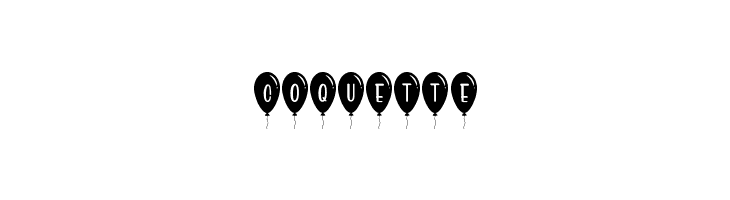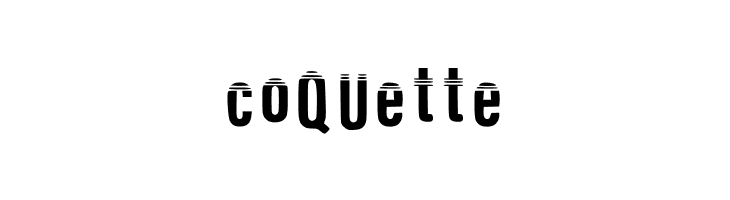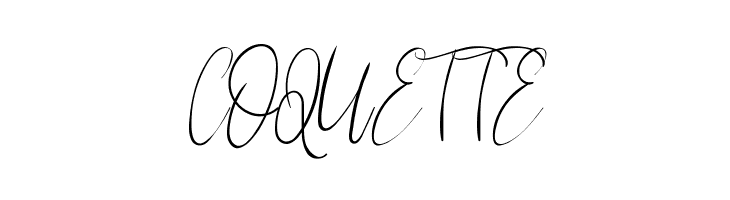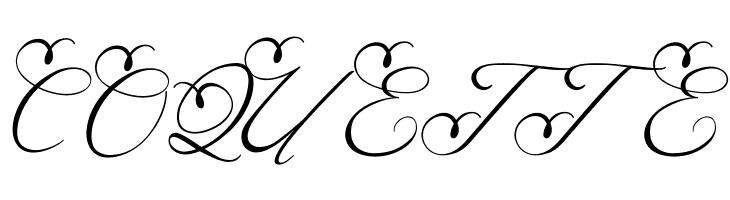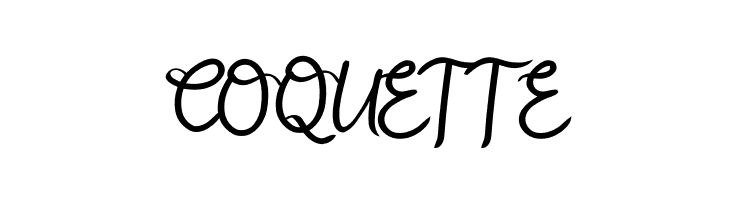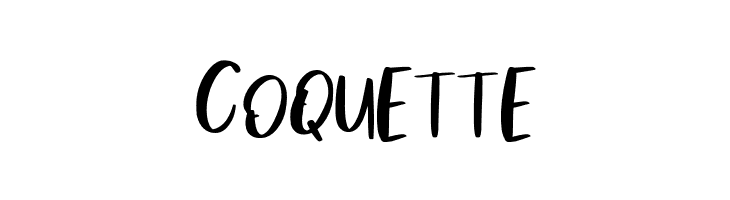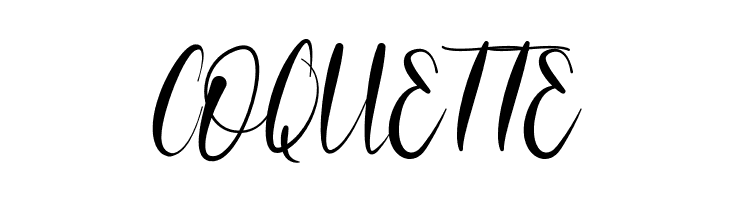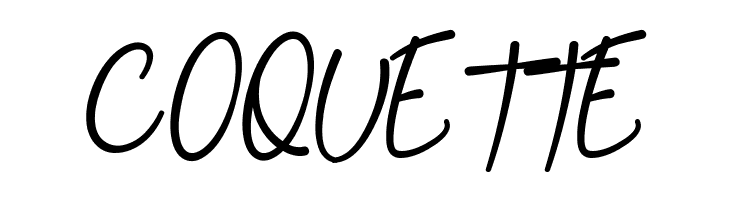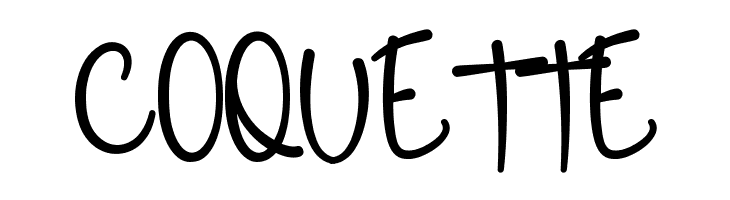
An elegant and flowing script font with interconnected letters and graceful curves.
A playful, casual handwritten font with bold strokes and smooth curves.
A playful, handwritten cursive font with an italicized style.
A dynamic and flowing script font with elegant, fluid strokes.
A playful font with characters inside balloon shapes, perfect for festive designs.
A bold, playful handwritten font with dynamic strokes and medium contrast.
A bold, modern font with horizontal line accents for a dynamic look.
An elegant script font with ornate flourishes and flowing lines.
A lively, expressive script font with fluid, connected letters.